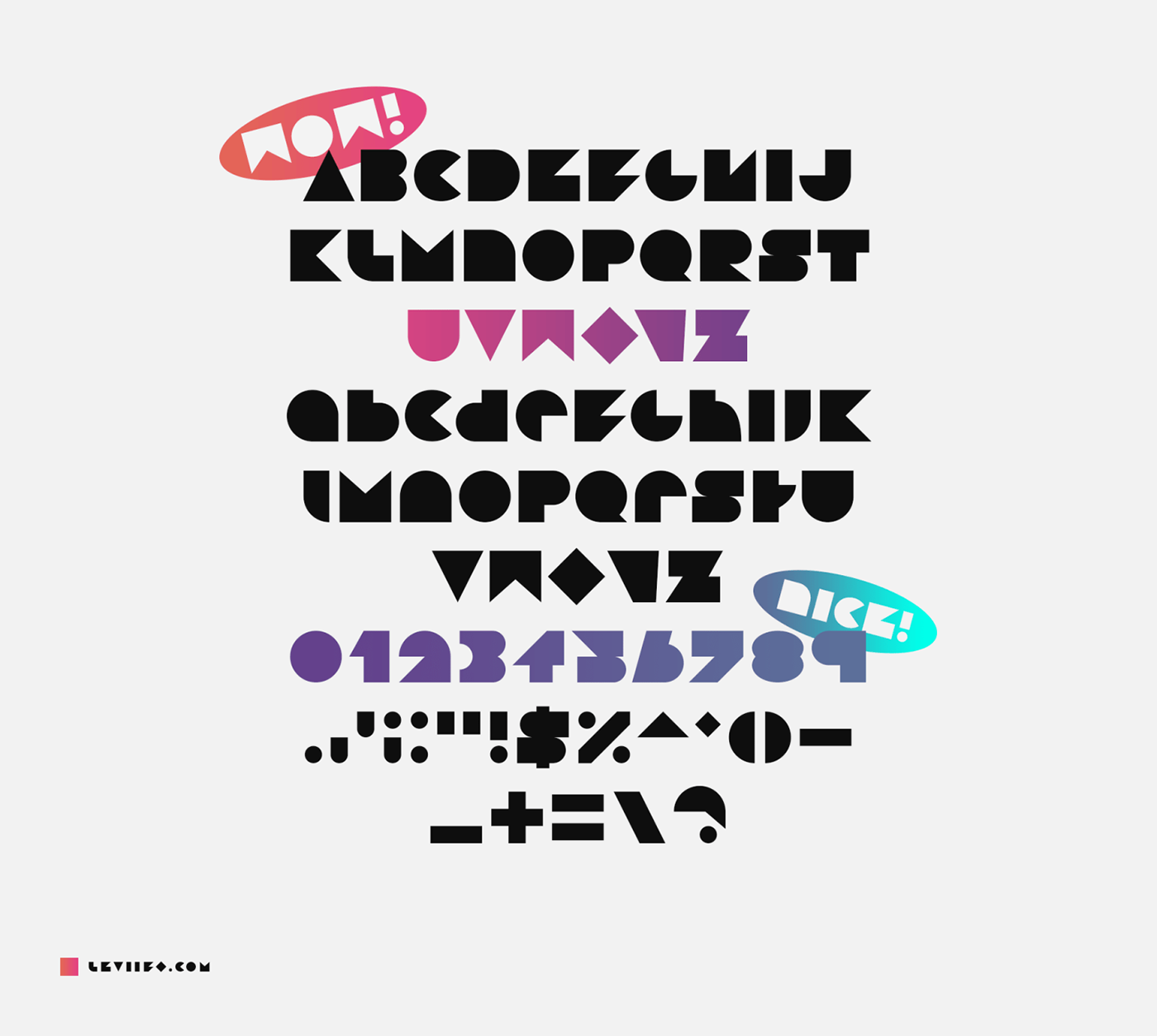
GEON is a retro themed display font that was created by Levii. This is a fun minimalist typeface which can be used for logos, games, headlines, packaging & much more. The taste of symmetry and geometry gives these characters a unique appearance - a perfect use of lines, curves and angles.